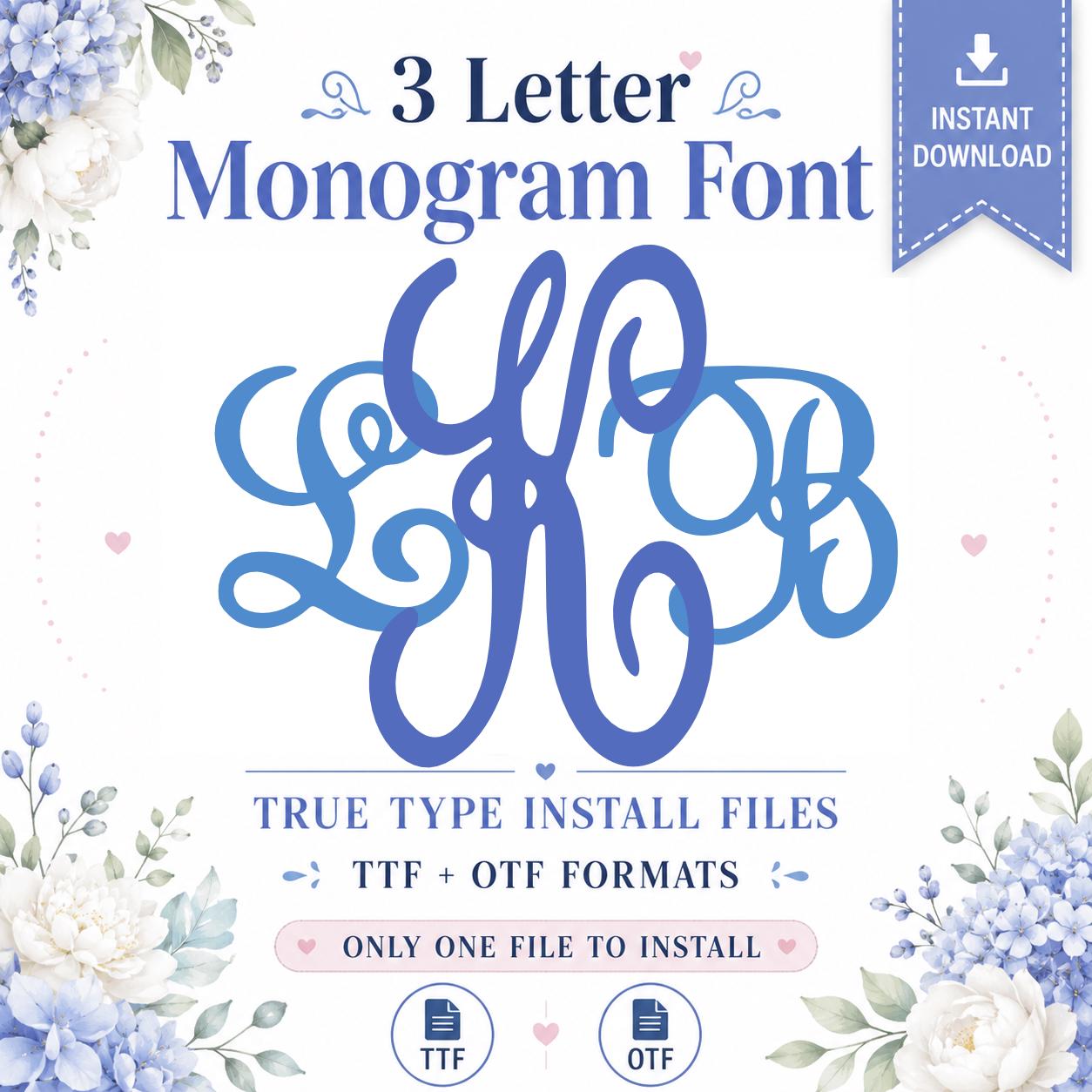
Fancy Interlocking Curly True Type Monogram Fonts
To get the Monogram look as shown, type lower case for the outside letters and Upper Case for the Middle letter. Letters can be ungrouped in Cricut Design Space and Silhouette Studio so you can adjust the spacing between letters.